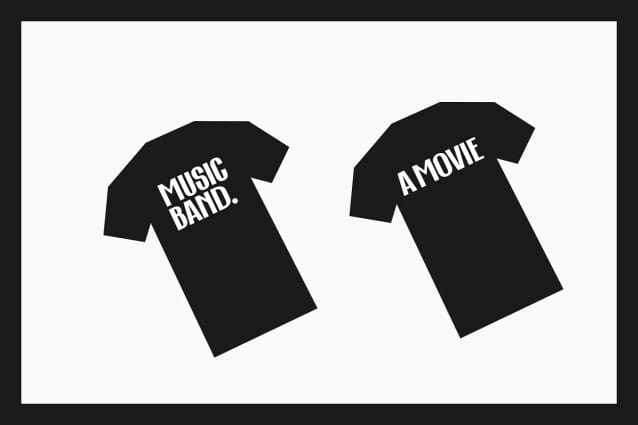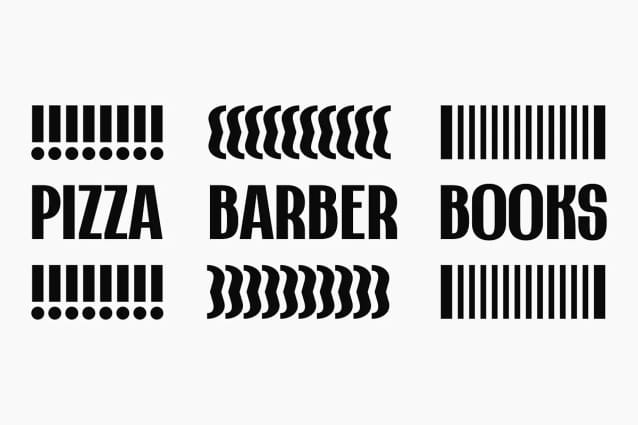
This Font
This Font – a simple but powerful display font designed for branding, packaging, posters, book covers, magazines and logos. It’s perfect for creating a memorable visual identity.